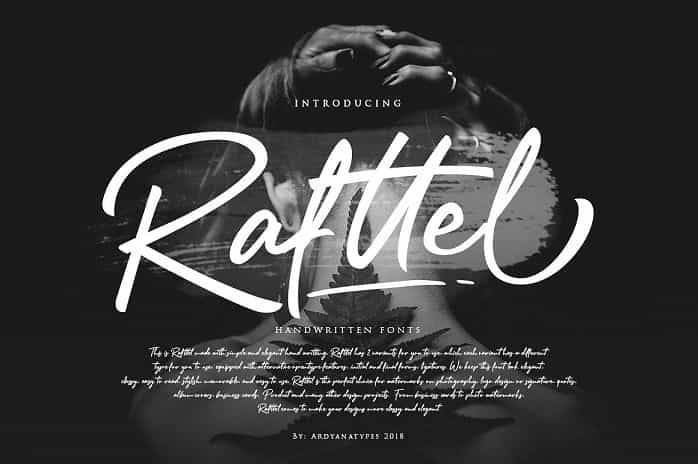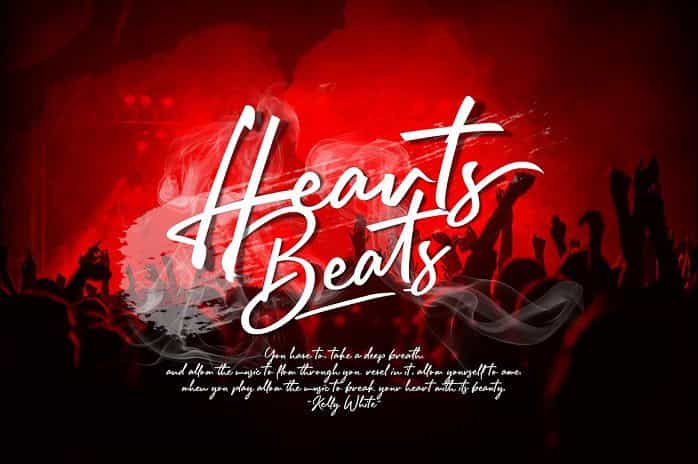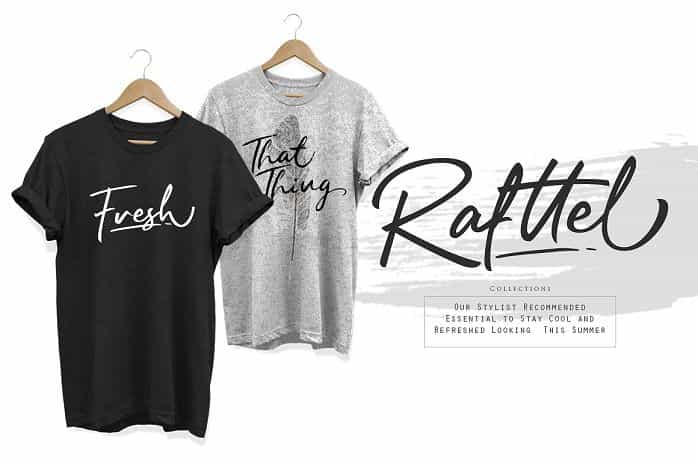
Rafttel Font is made with simple but elegant handwriting, Rafttel has two variants for you to use, with a good type of features like, alternative opentype feature, initial and final form, ligature. Granted Rockonus that is very easy to use. This is the right option for watermarks on photography, signature or signature logo design, quotes, album covers, business cards, and many other designs.